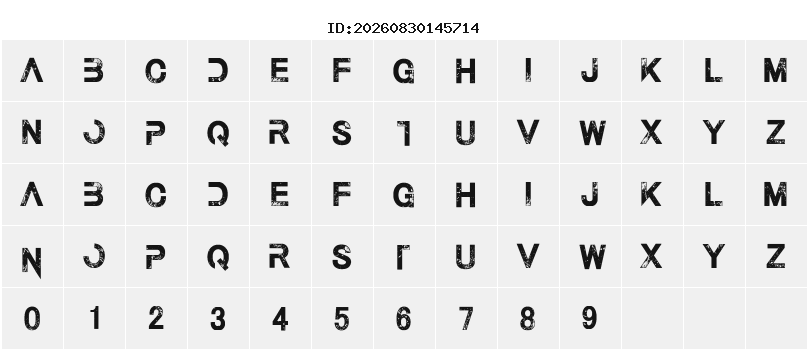
• Font Name: The Last Call
• Designer: Chris Vile
• Manufacturer: Font Monger
• Description: The Last Call Regular is a font by Font Monger, designed by Chris Vile in 2015.
About The Last Call.ttf
The Last Call.ttf is a modern, elegant sans-serif font designed for ultimate readability and visual harmony. Perfect for branding, headlines, web design, and print materials.